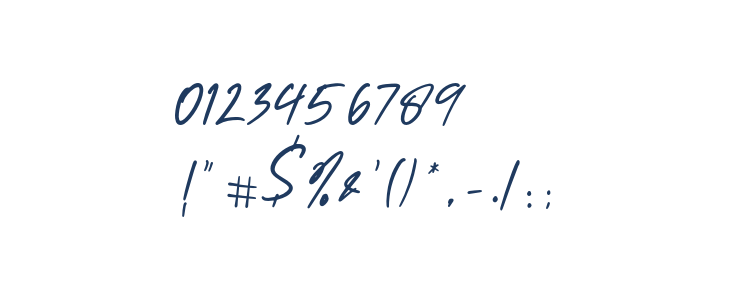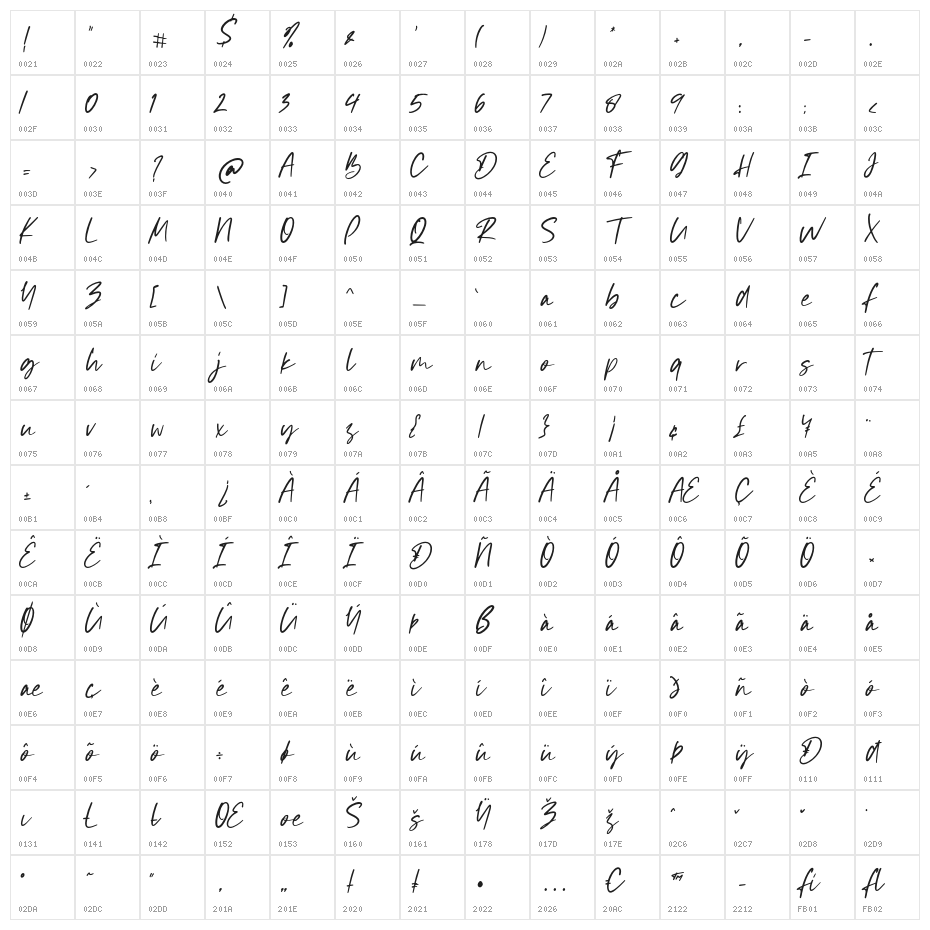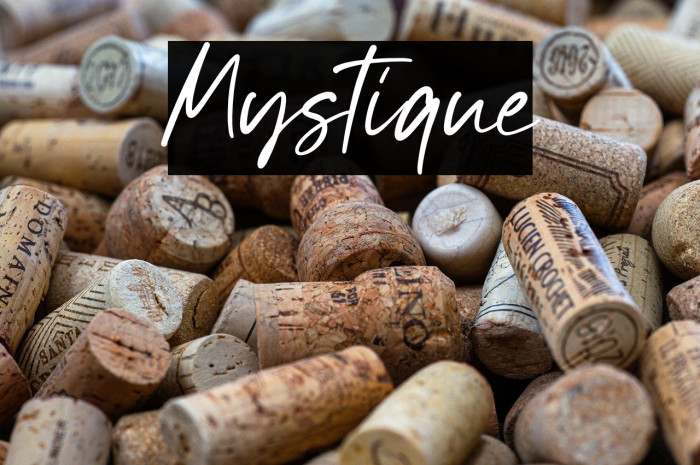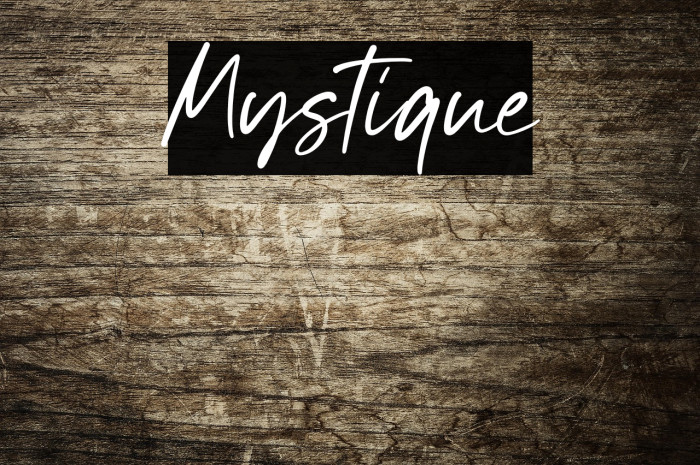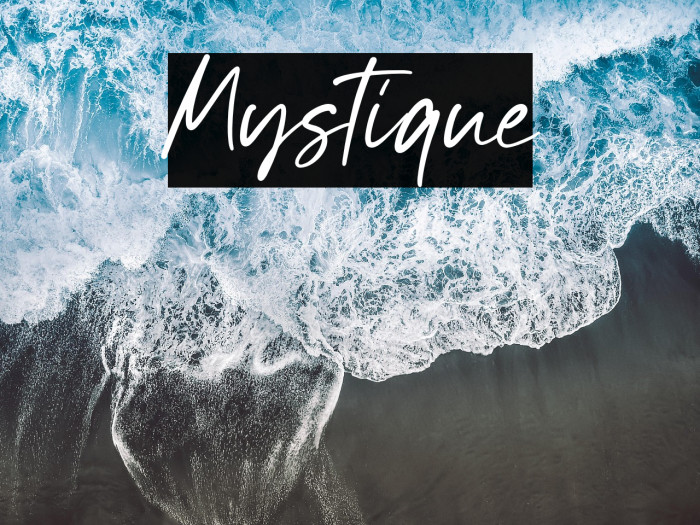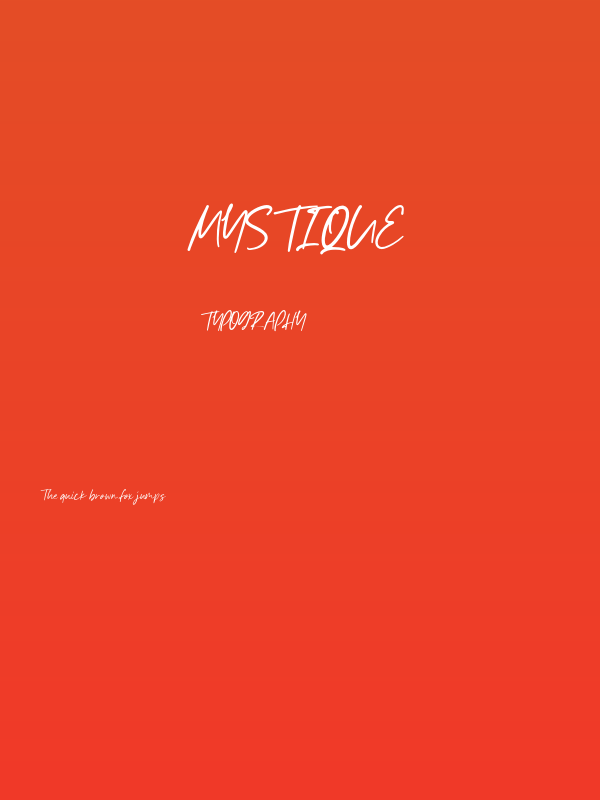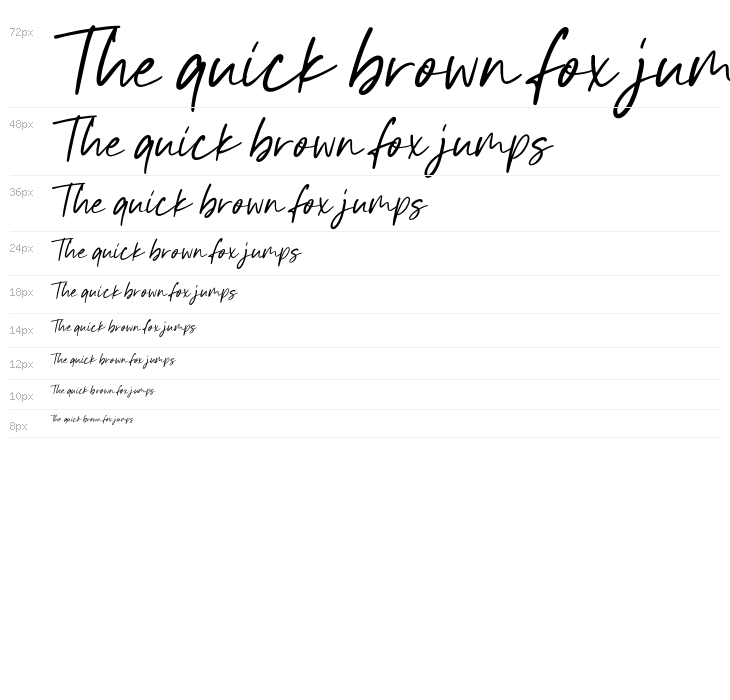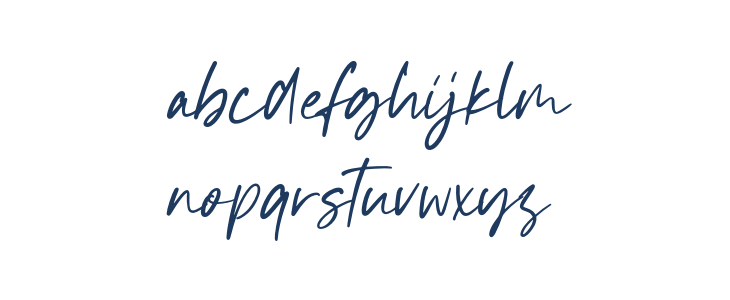
Mystique Font
Mystique Description
This font exudes a lively and dynamic energy with its fluid, cursive style. The letters are crafted with a natural, handwritten appearance, featuring smooth curves and varying stroke widths that add a sense of movement and personality. The uppercase letters are bold and slightly slanted, while the lowercase letters maintain a consistent flow, enhancing readability. Numbers and special characters are designed to match the overall aesthetic, ensuring a cohesive look. This font is perfect for projects that require a personal touch, such as invitations, greeting cards, or branding materials that aim to convey warmth and creativity.